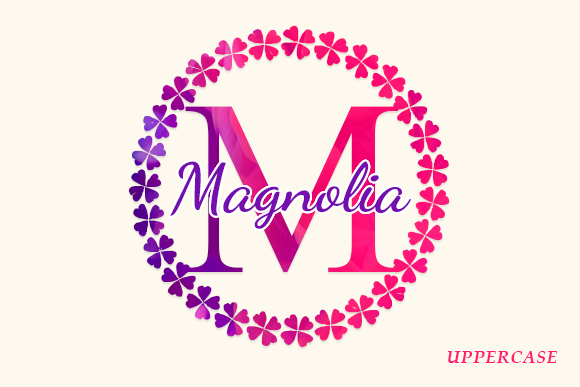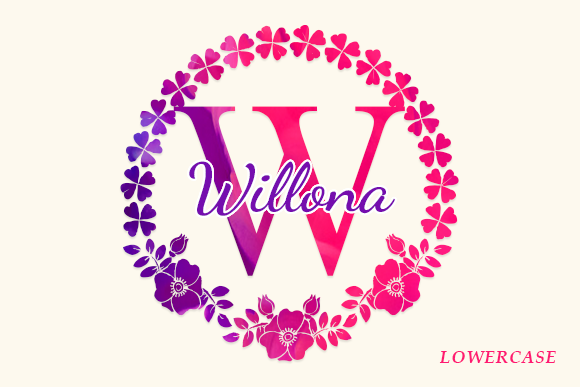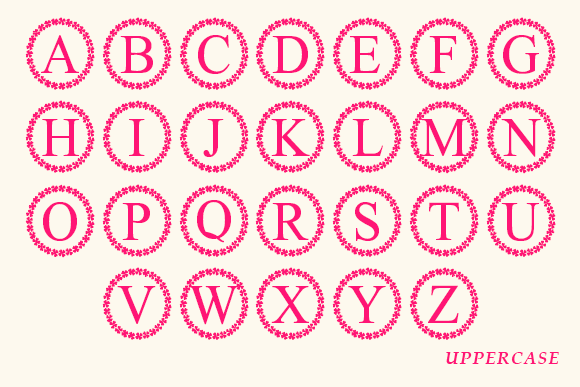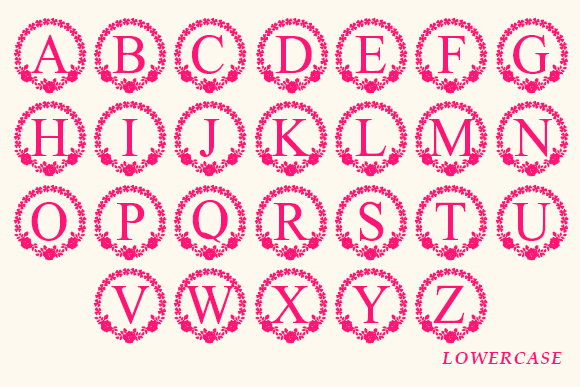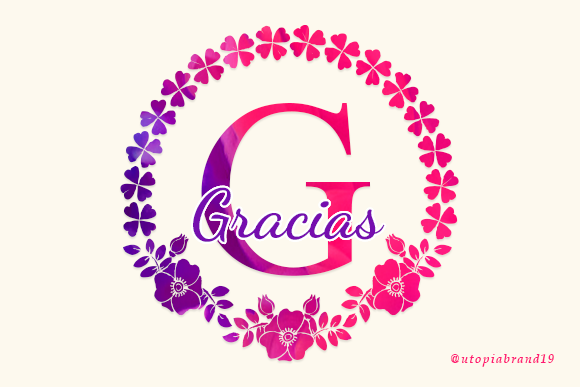
The Charm of Hibiscus Monogram Font: A Designer’s Delight
I’ll never forget the time I was working on a wedding invitation project, and my client asked for a font that was ” elegant, yet playful; sophisticated, yet whimsical.” I scoured the internet, tried out dozens of fonts, but nothing seemed quite right. That was until I stumbled upon the Hibiscus Monogram Font. ✨ It was love at first sight! The charming, decorative letters captured the essence of what my client was looking for, and I knew I had found the perfect fit.
- ✨ Authentic, hand-crafted feel that adds a touch of warmth to any design
- ✅ Beautifully designed monograms and ligatures that make your text stand out
- 🎉 Extensive character set, including OpenType features and stylistic alternates
- 👍 Perfect for wedding invitations, stationery, social media posts, and greeting cards
- 🤔 Some users may find the font a bit too ornate for certain projects
- ⚠️ Limited use of uppercase letters, which may require creative workarounds
The Story Behind Hibiscus Monogram Font:
Legend has it that the creator of Hibiscus Monogram Font was inspired by the tropical hibiscus flower, known for its vibrant colors and delicate petals. The designer wanted to capture the essence of this beautiful flower in a font that would bring joy and elegance to any design. And so, Hibiscus Monogram Font was born – a charming, decorative font that’s perfect for adding a touch of whimsy to your creations.
Q: What type of projects is Hibiscus Monogram Font best suited for?
A: Hibiscus Monogram Font is perfect for wedding invitations, stationery, social media posts, greeting cards, and any other design project that requires a touch of elegance and playfulness.
Q: Is Hibiscus Monogram Font available in different styles or variations?
A: While Hibiscus Monogram Font may not have multiple styles or variations, its extensive character set and OpenType features provide a range of options for customizing your designs.